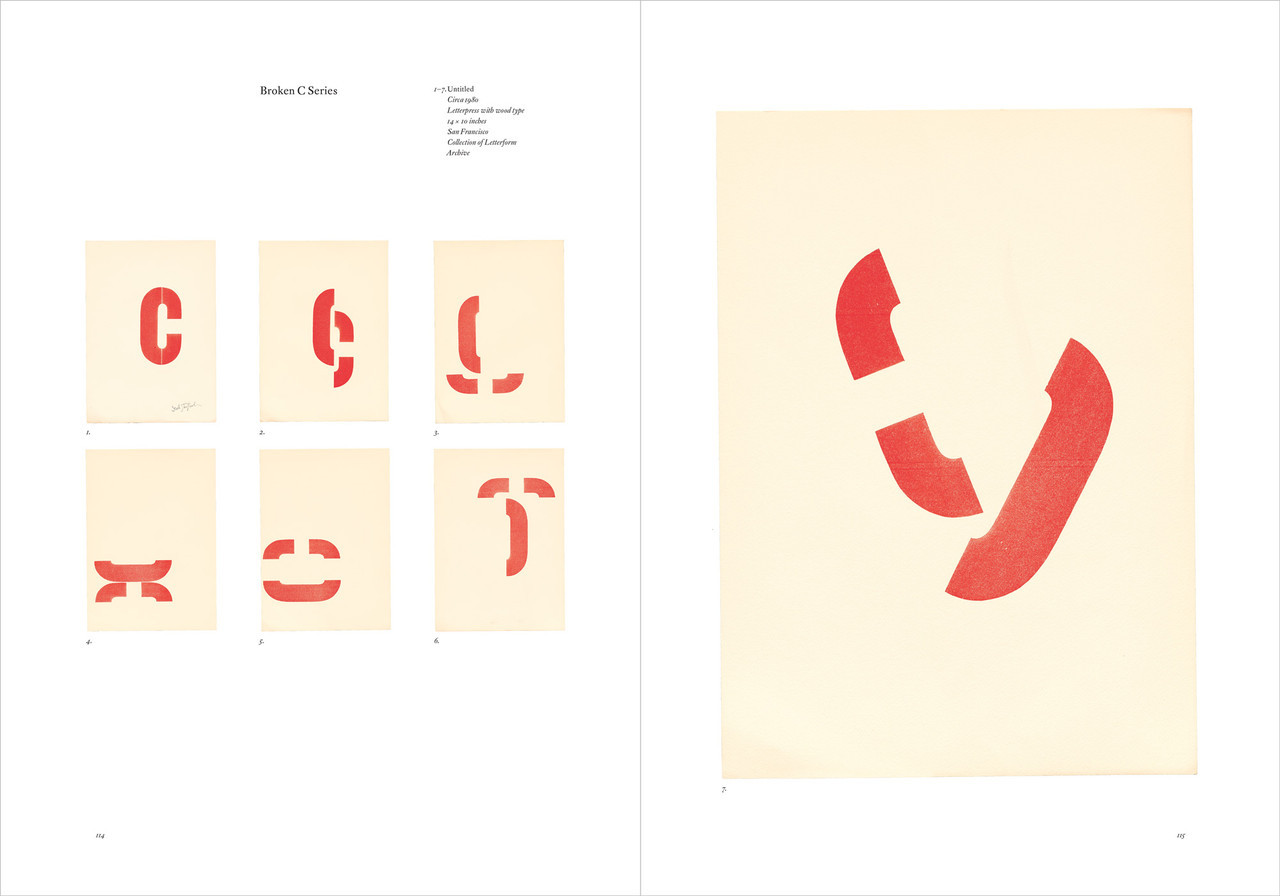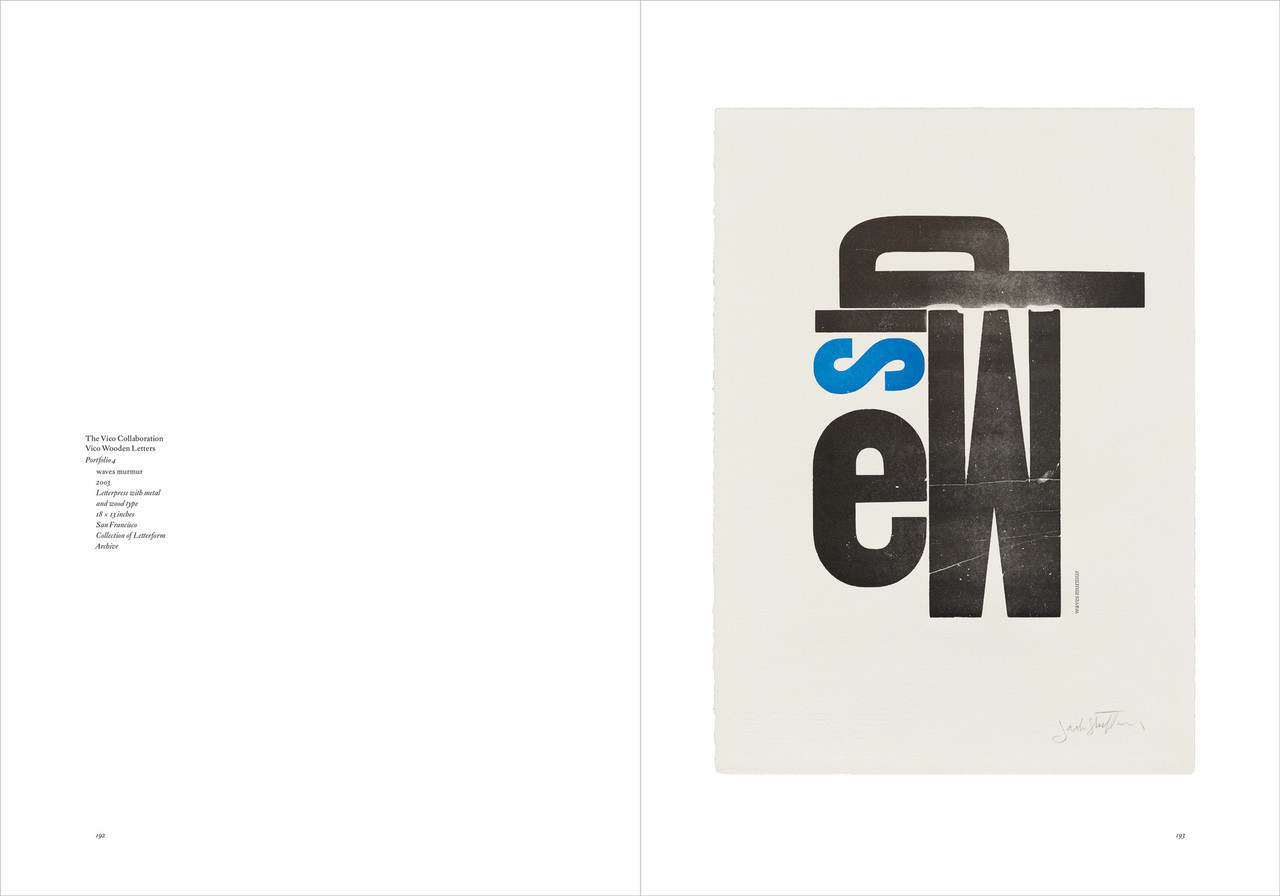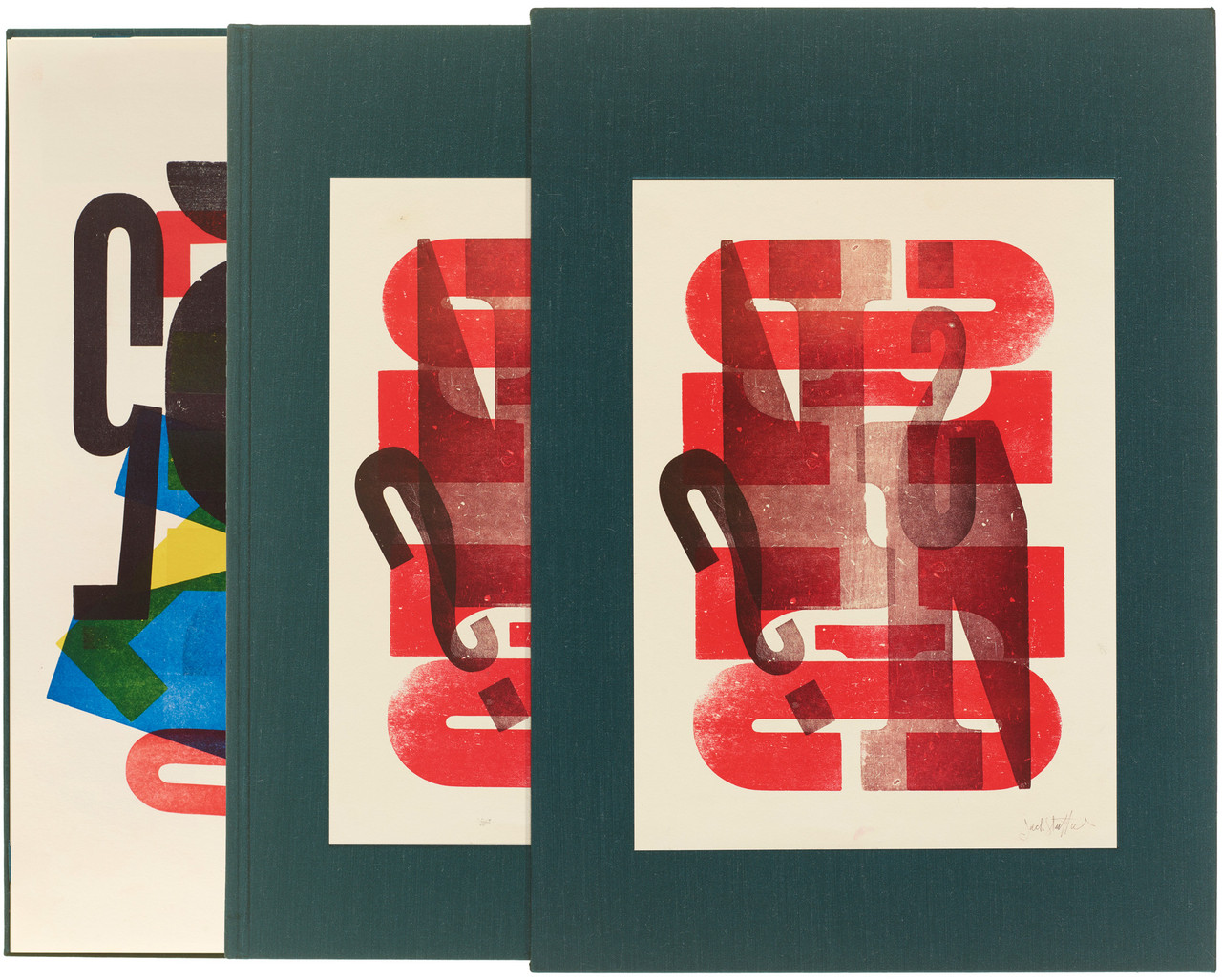
An exquisite deluxe edition covered in Stauffacher’s favorite raw silk and featuring a portfolio with ten facsimile prints and ten letterpress proofs created with his actual wood type
Created in his off-hours on the weekend and in part inspired by the modern artists of his day, Jack Stauffacher’s extraordinary prints demonstrate what wood type can do when released from its role in traditional communication and instead used to explore letters as pure form. In the resulting abstract, dynamically composed, often lushly layered prints, Stauffacher reclaims typography as a subject fit for the gallery wall.
Featuring 500 images (most of which have never appeared in a publication before) and essays by collaborators from the worlds of art and typography, Only on Saturday is the first trade book to document the work of one of the past century’s great typographers and printers―and offer the compelling backstory behind its creation.
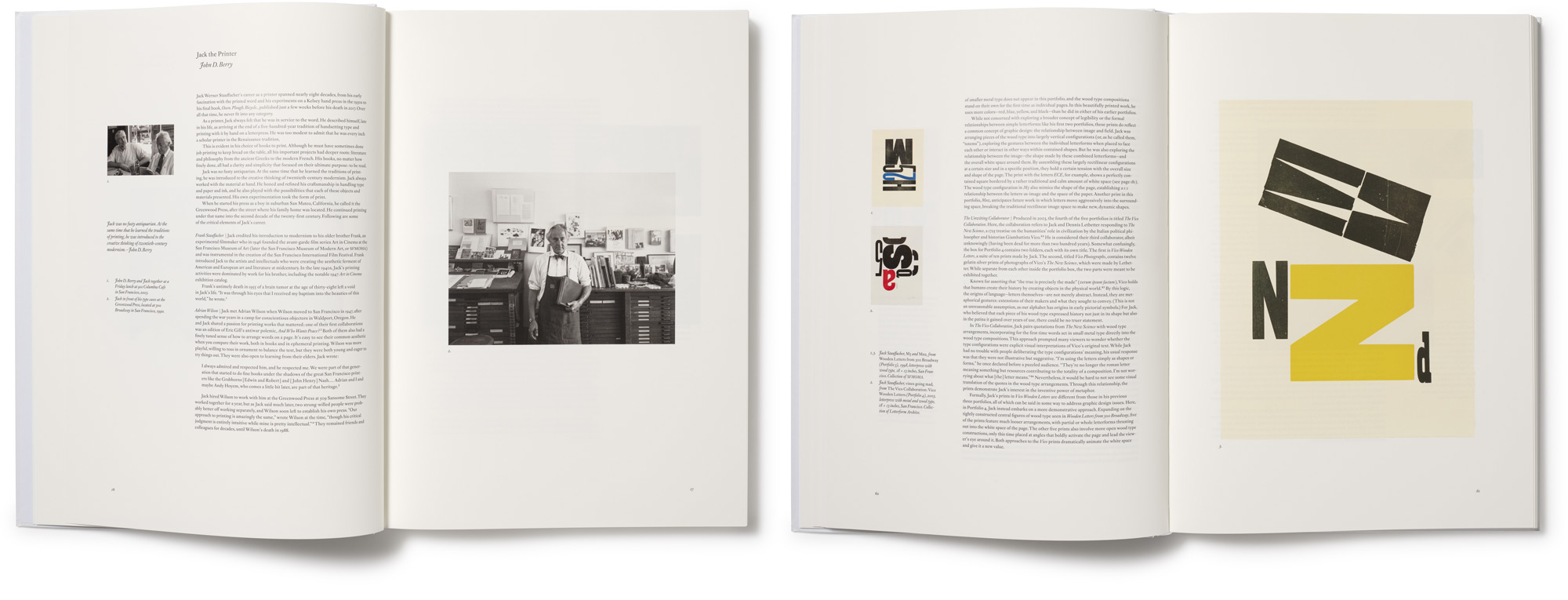
Only on Saturday is the first comprehensive look at Stauffacher’s striking typographic experiments, in which he used a box of worn, mismatched wood type to transform letters from legibility workhorses into expressive studies of surface, color, and form.
These prized compositions — some patterned with letters in different sizes, typefaces, and inks; some layered with multiple presses of a single letter; others awash in solvent — morphed from exploratory pieces made during his off hours into formal studies of what was possible between the positive and negative spaces on a page. Toward the end of his life, Stauffacher expressed that these prints were “experimental up to a point”: a series of investigations that, once complete, yielded a deliberate statement of design. Today, they are in the permanent collections of many major museums.
About Jack Stauffacher
Born in 1920 in San Mateo, California, Jack Stauffacher was a printer, typographer and fine-book publisher whose delicate yet graphic sensibility landed his work first in library rare book collections and then in museums such as SFMOMA and LACMA, who sought out his typographic prints. A printer of exceptional skill who began his apprenticeship at the age of 16, Stauffacher created books for his Greenwood Press off and on for eight decades. He taught typography at Carnegie Mellon and the San Francisco Art Institute, and served as typographic director at Stanford University Press. But it was his later wood type prints that ushered his career into the realm of fine art. Stauffacher created these innovative and elegant prints from 1966 until his death in 2017 at the age of 96. In recognition of his contributions to typography and design, he was awarded an AIGA Medal in 2004.
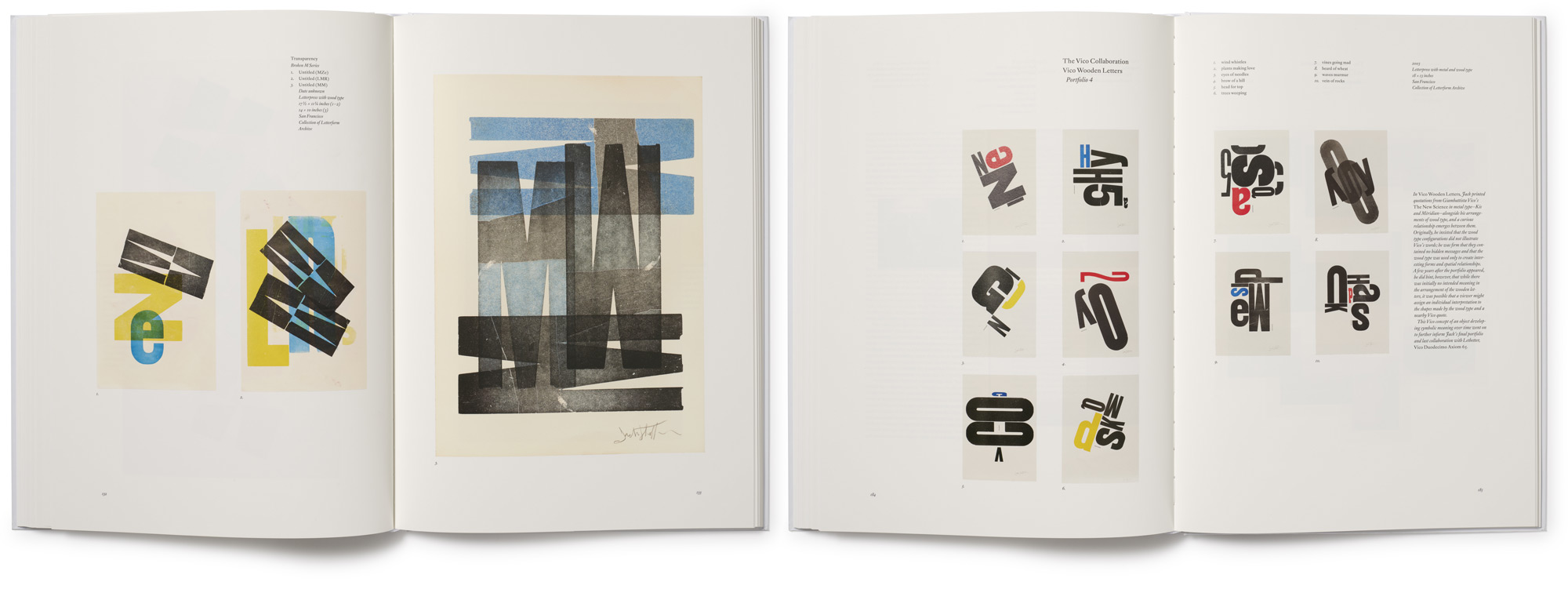
“The last of San Francisco’s traditional bohemians of the 1930s, Stauffacher became known as an articulate participant in the local literary and artistic avant-garde, as well as an inspiring mentor for young people and newcomers to the Bay Area. . . . [He was] the dean of San Francisco printers.” San Francisco Chronicle
“As typographers, designers, and printers, we translate words into written communication. Jack had done that all his life, making words visible. Then, after he had designed pretty much everything worth designing for a purpose, he started doing the opposite: he picked random wood letters from a case he had stumbled upon and made images with them. We aren’t supposed to read those letters as words but to go back to where they came from: pictures of those things. A large red B can be a sail, a blue A on its side is the sea, and the little black letters are birds or stones or ripples. . . . When I asked Jack about the prints, he said that those letters had become such intimate friends over time that he could behold them just as beautiful objects; they didn’t have to work for a living anymore.” Erik Spiekermann
“Jack was a very special person: easy to meet, hard to fathom, fun to be with, stimulating to listen to, effortless to learn from, and difficult to forget. . . . His cheerful and gentlemanly demeanor masked a determination to think and work at the highest level. His modern old-fashionedness found its way into everything he did and provided me with yet another model of how to live a fulfilling life in design.” Chris Pullman, Design Observer
“Jack Stauffacher . . . spent his long career in an intimate relationship with typographic form, content, and the craft of assembling letters — one at a time — to create beautiful and meaningful communications that will be relevant five-hundred years from now.” Terry Irwin
Praise
“Editor and designer Chuck Byrne captures the energy of Stauffacher’s prints within the book’s spacious ten-by-fourteen-inch format. By adding small studies and details on individual pieces, he further illuminates the complex printing process. Only on Saturday is also a biography, and a dozen contributors take readers inside their ambitious projects with the master printer. Their essays confirm his character: his love of literature, philosophy, art, and conversation especially.” Communication Arts
“A stunning tribute to Jack Stauffacher, a letterpress printer, typographer, and designer whose elegant and innovative type treatments cemented his reputation as one of the best printers of the twentieth century.” The San Francisco Egoist